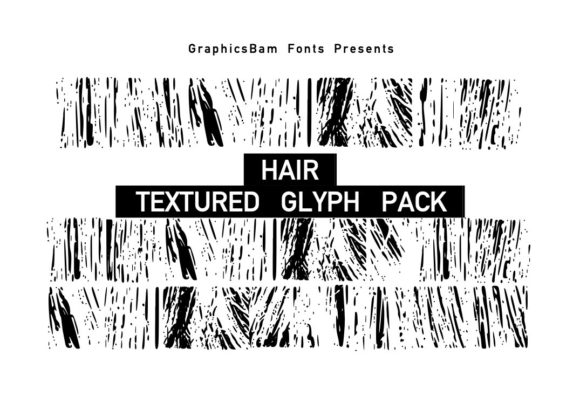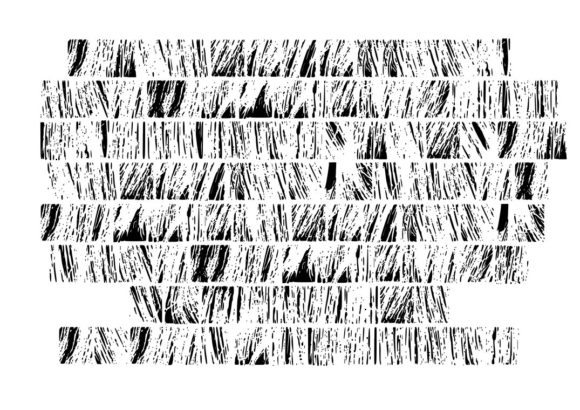
Hair Textured Glyphs Font
Hair Textured Glyphs is an extensive collection of glyphs that offers a wide range of long brushed hair textures, ideal for enhancing your natural design or craft projects with a touch of organic beauty. This comprehensive pack provides you with a diverse selection of textures that capture the unique characteristics and flow of long hair.
With Hair Textured Glyphs, you can effortlessly incorporate these realistic hair textures into your designs. The pack includes various hair patterns, such as silky straight, wavy, curly, and more. These textures add depth, visual interest, and a sense of movement to your artwork, making them perfect for projects that require a natural and flowing look.
Whether you’re working on digital designs, print materials, or crafts, Hair Textured Glyphs offers a valuable resource to enhance your creative projects. These textures can be used as backgrounds, accents, or elements to bring a sense of softness and elegance to your designs.
The versatility of Hair Textured Glyphs allows you to customize and modify the textures to suit your specific design needs. You can adjust the size, color, and intensity of the hair textures, or combine different hair textures to create unique compositions. Whether you want to create a fashion illustration, a beauty-themed poster, or add a touch of organic texture to your digital artwork, Hair Textured Glyphs has got you covered.
Hair Textured Glyphs is particularly well-suited for a wide range of projects, including beauty and fashion designs, portrait illustrations, salon and haircare branding, and more. By incorporating these hair textures into your designs, you can evoke a sense of softness, elegance, and natural beauty.
In summary, Hair Textured Glyphs is a comprehensive collection of glyphs that offers a diverse range of long brushed hair textures for your design or craft projects. With these textures, you can effortlessly enhance your artwork and bring the organic beauty and flow of hair to life. Let Hair Textured Glyphs inspire your creativity and add an authentic touch to your designs!